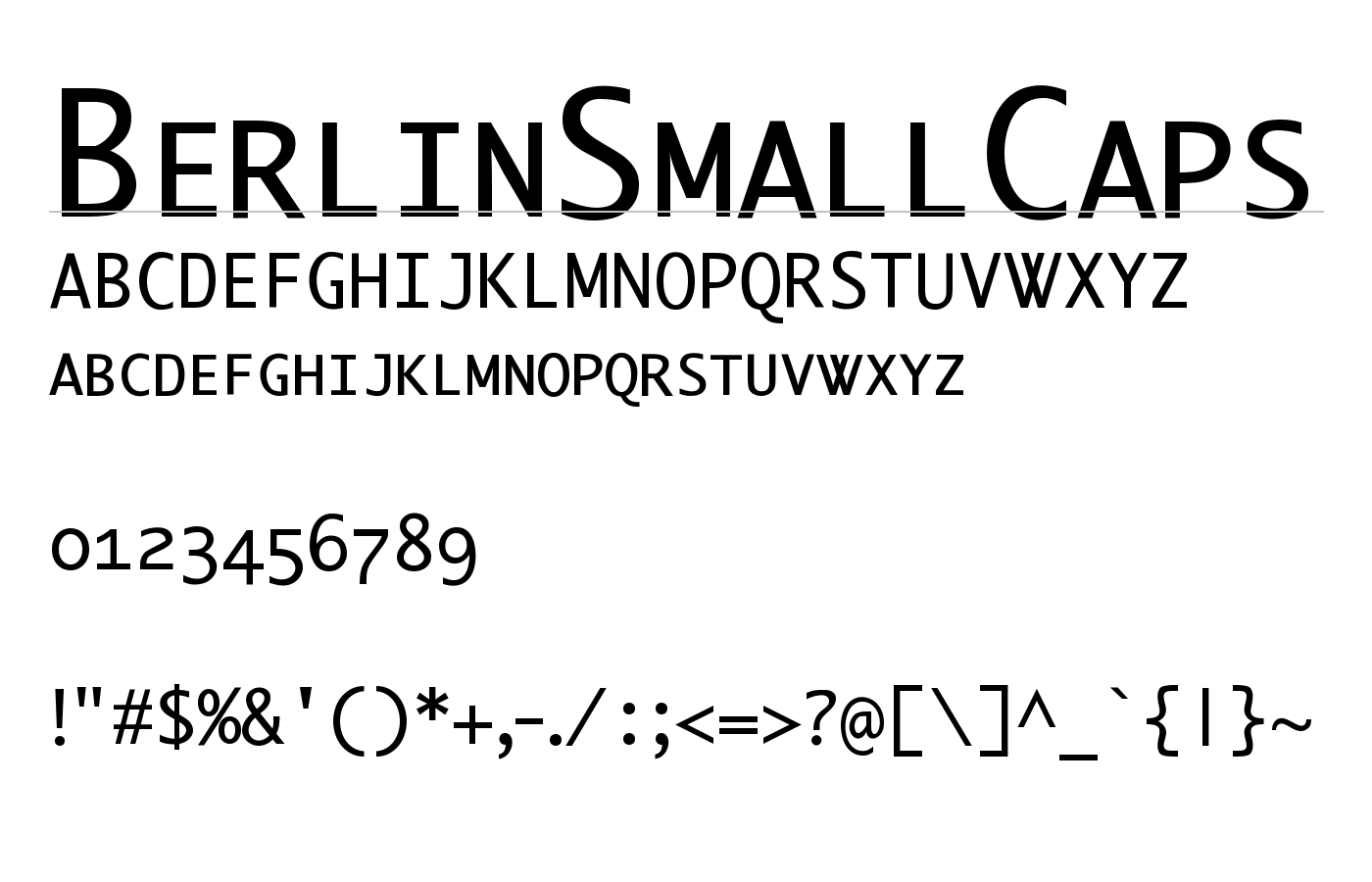
BerlinSmallCaps is a clean, narrow sans serif font featuring small caps with a modern and slightly geometric feel. Its uniform stroke weight and distinct letter shapes give it a sophisticated yet approachable personality, making it ideal for headlines, logos, and editorial design where clarity and style are key. This font works well in settings that call for a sleek, contemporary look with a touch of elegance.
BerlinSmallCaps Font
About BerlinSmallCaps Font